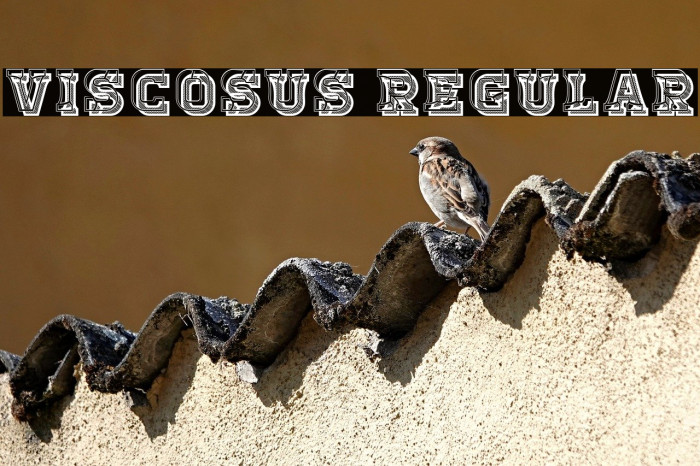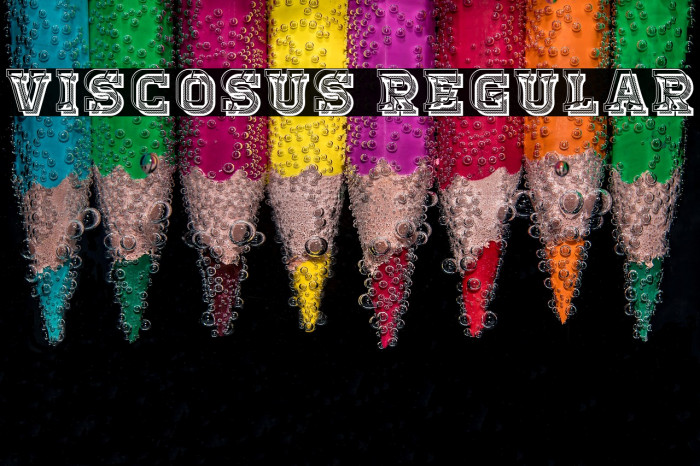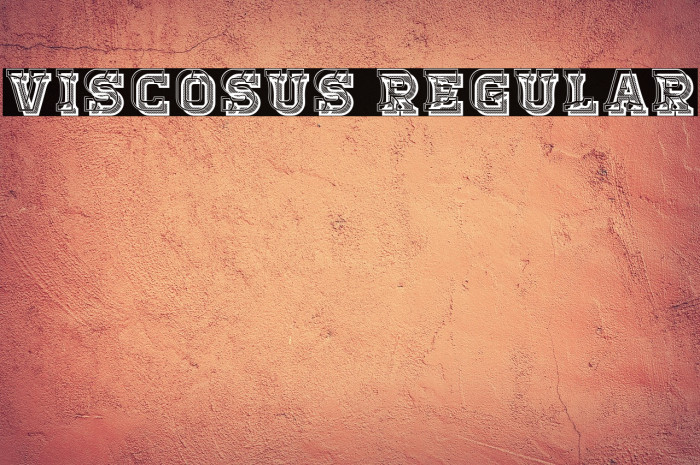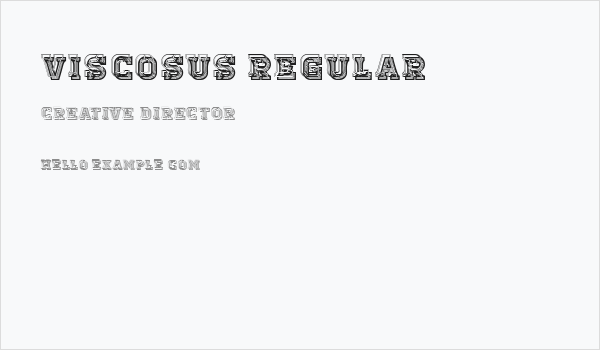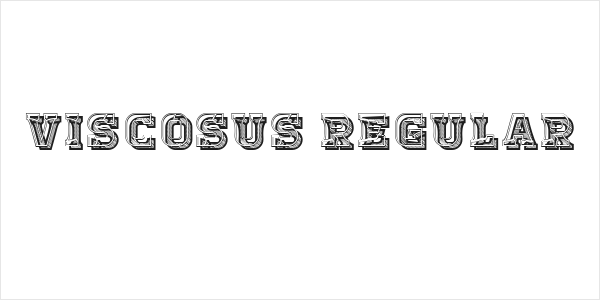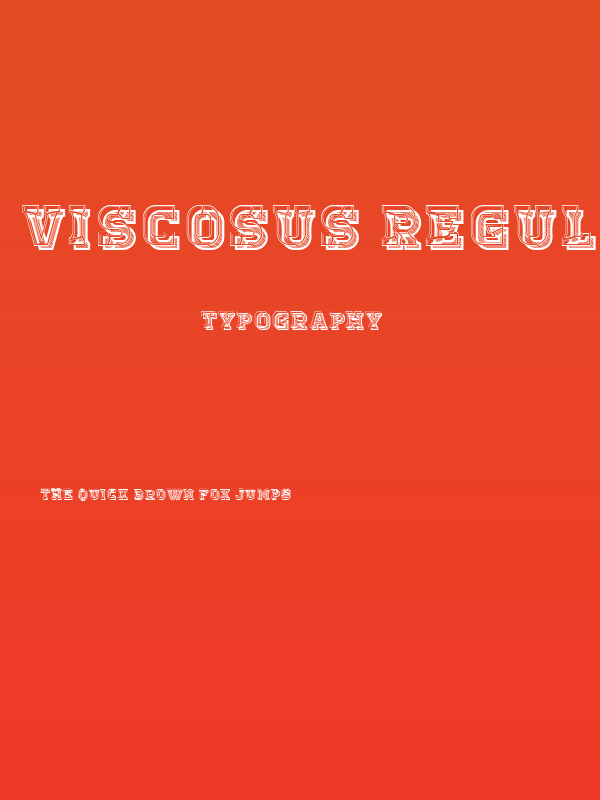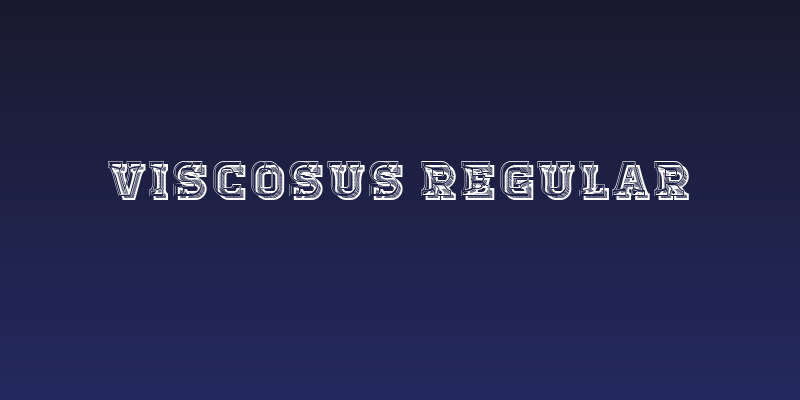
Viscosus Regular Font
Viscosus Regular Description
This font features a bold, decorative style with intricate detailing and a three-dimensional appearance. Each character is designed with a shadow effect that gives it depth and a sense of movement. The uppercase letters are particularly striking, with strong lines and elaborate embellishments that make them stand out. The font has a vintage feel, reminiscent of old circus posters or classic signage, making it ideal for projects that require a touch of nostalgia or a bold statement. The detailed design of each letter ensures that it captures attention, making it suitable for headlines or logos where impact is essential.